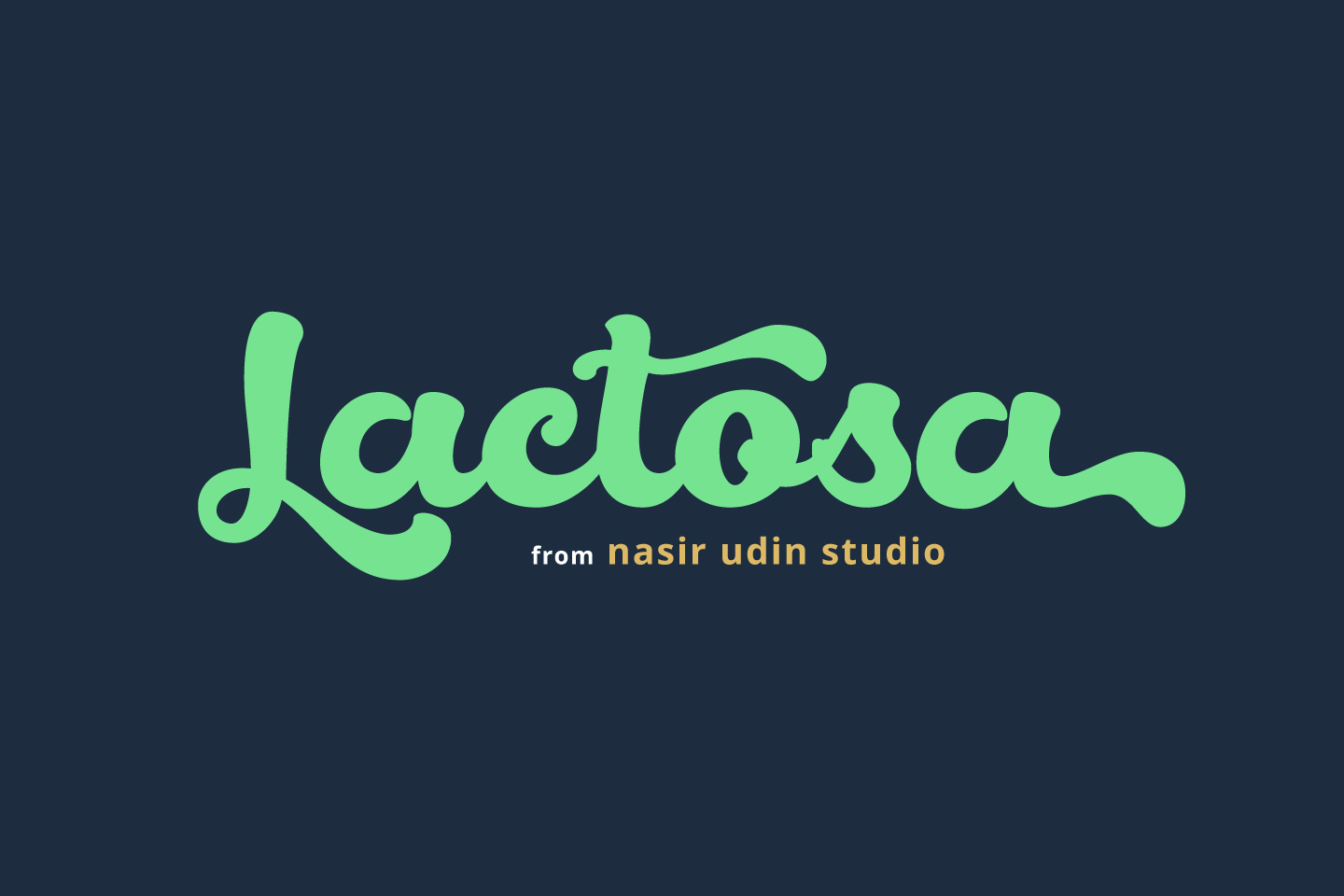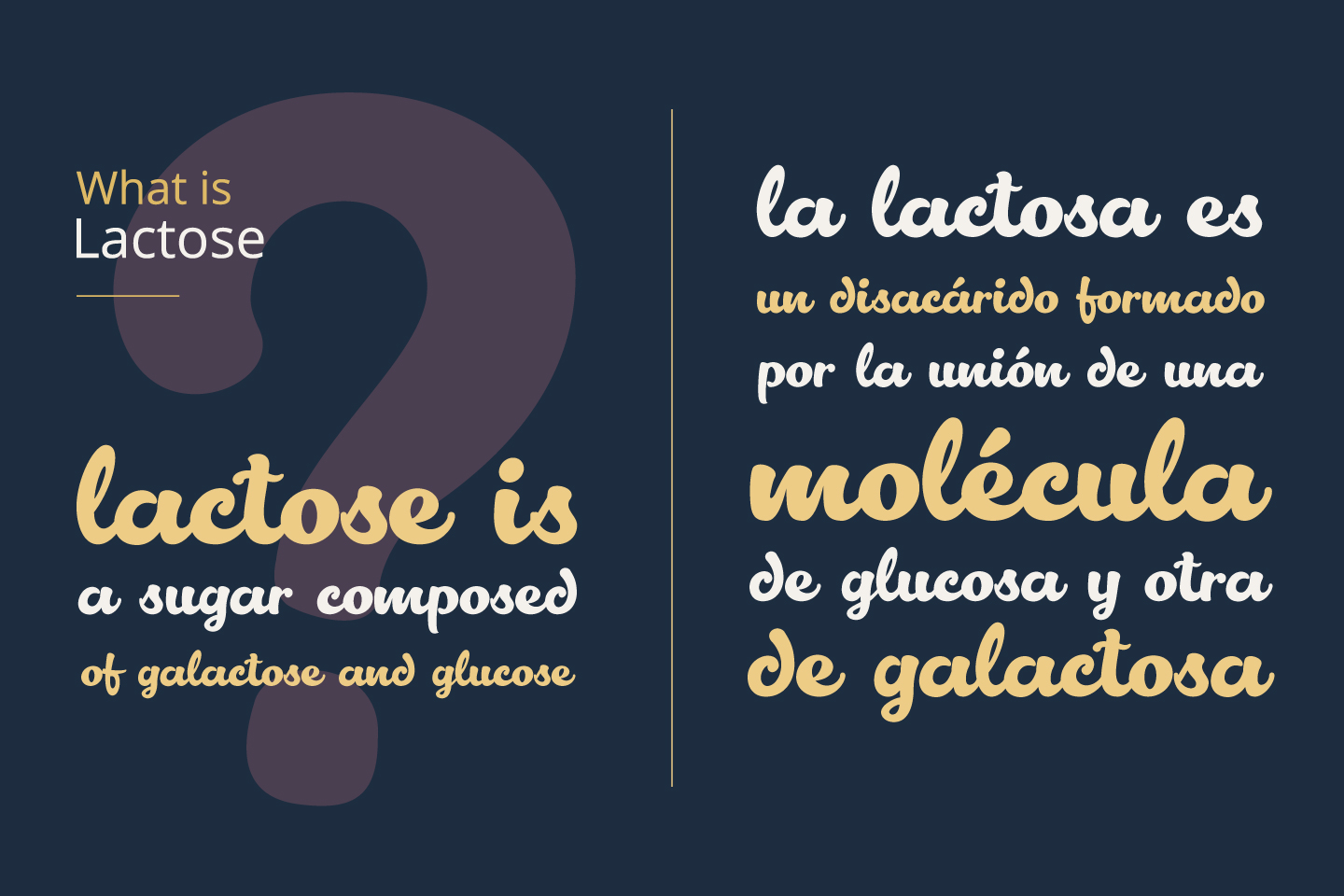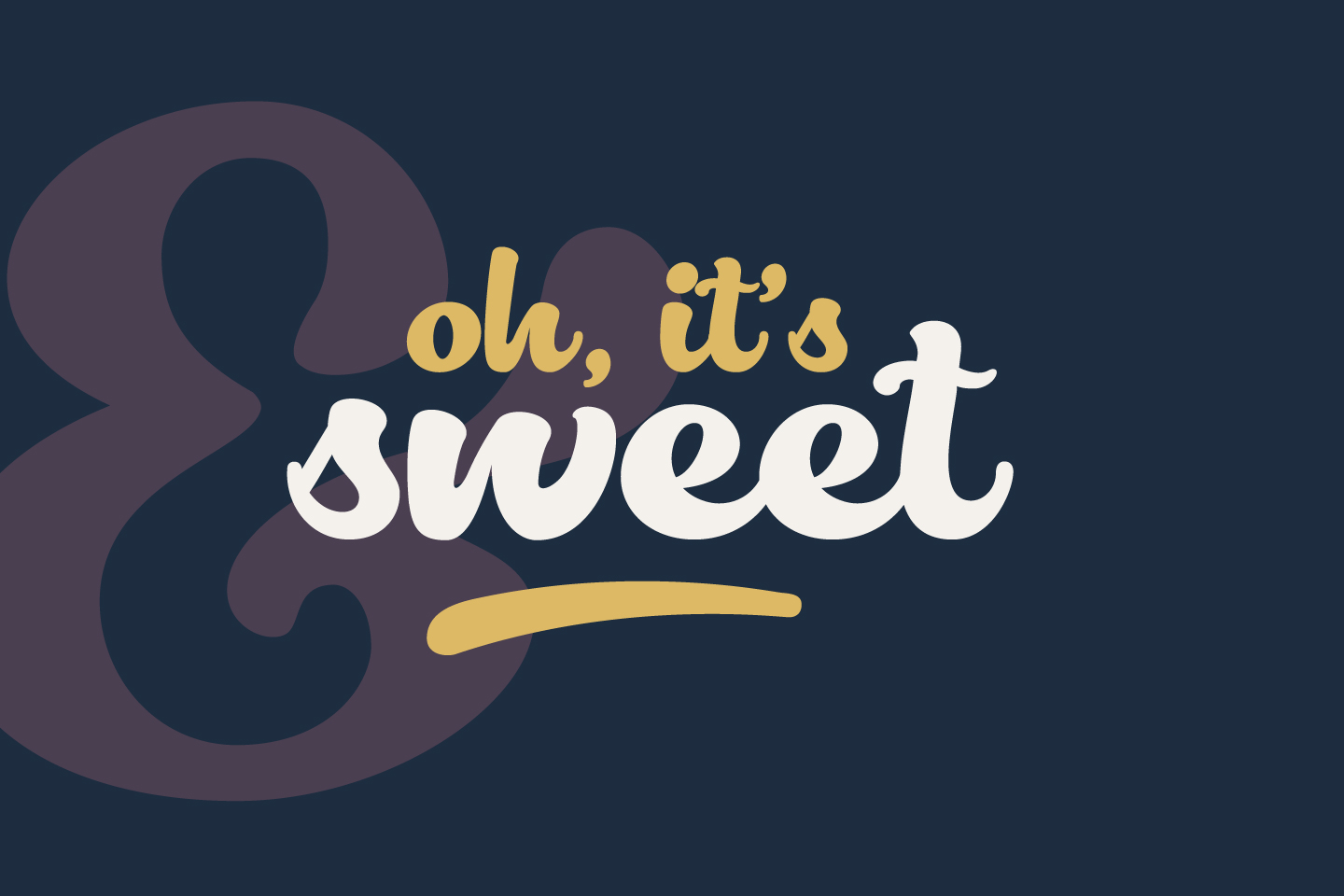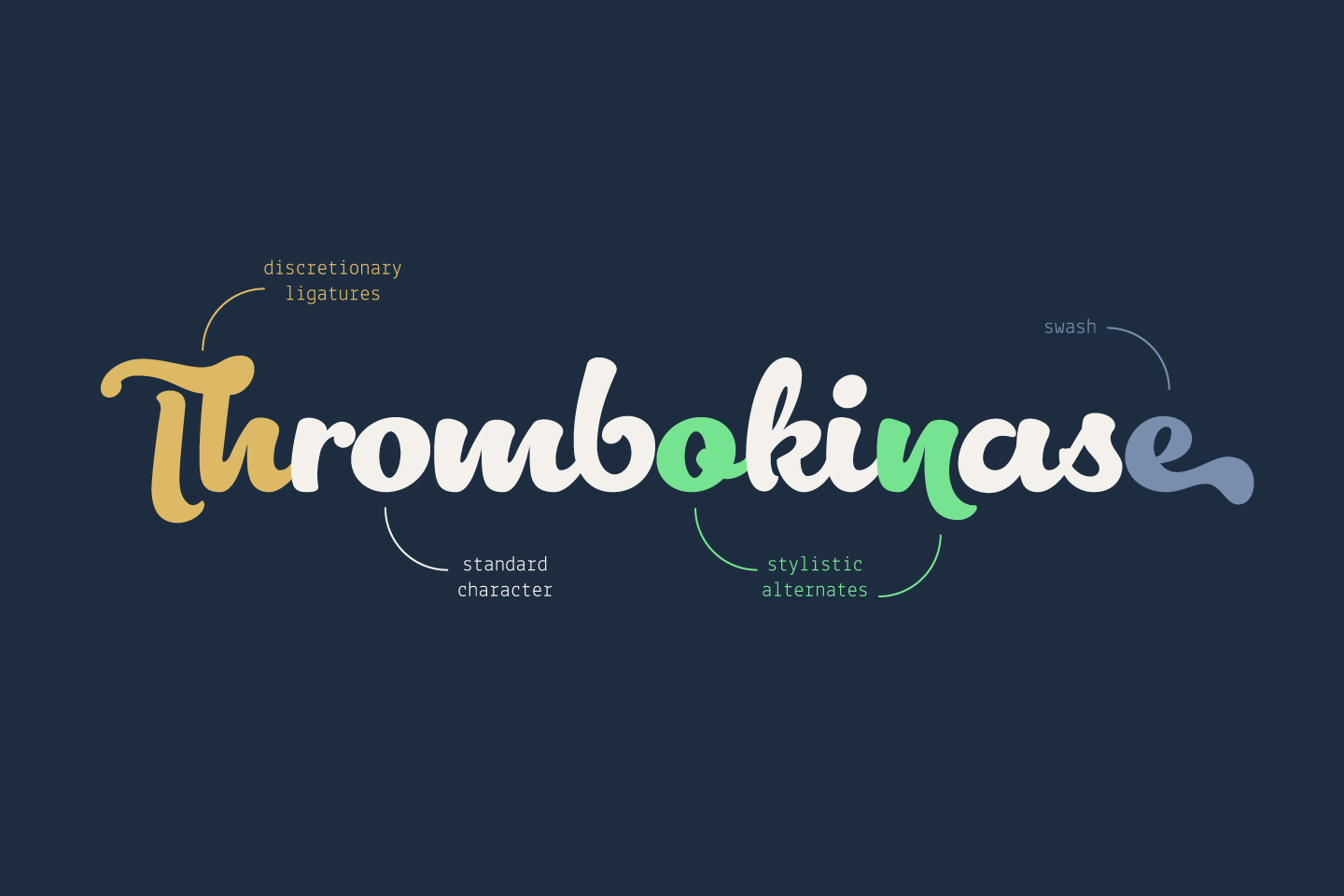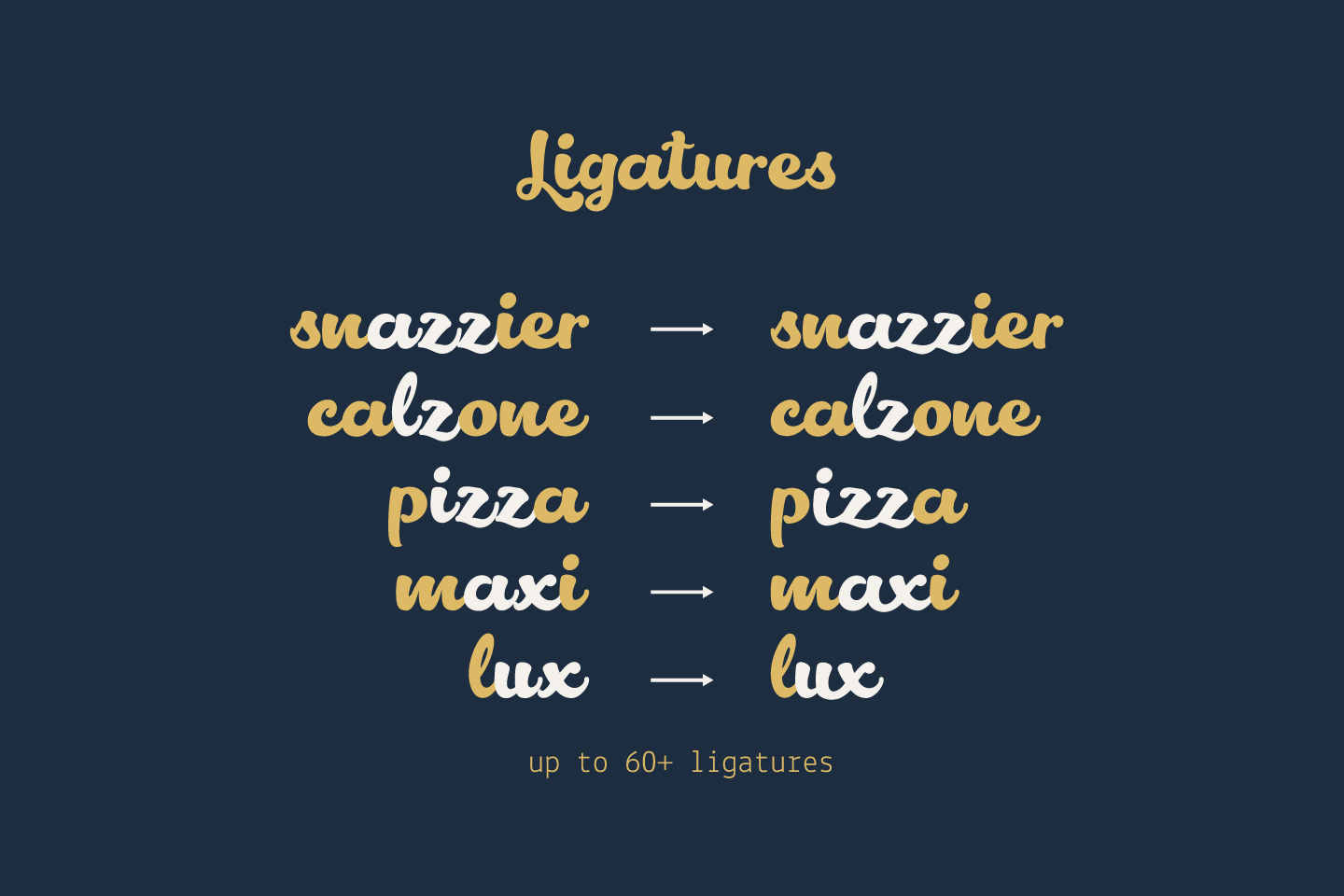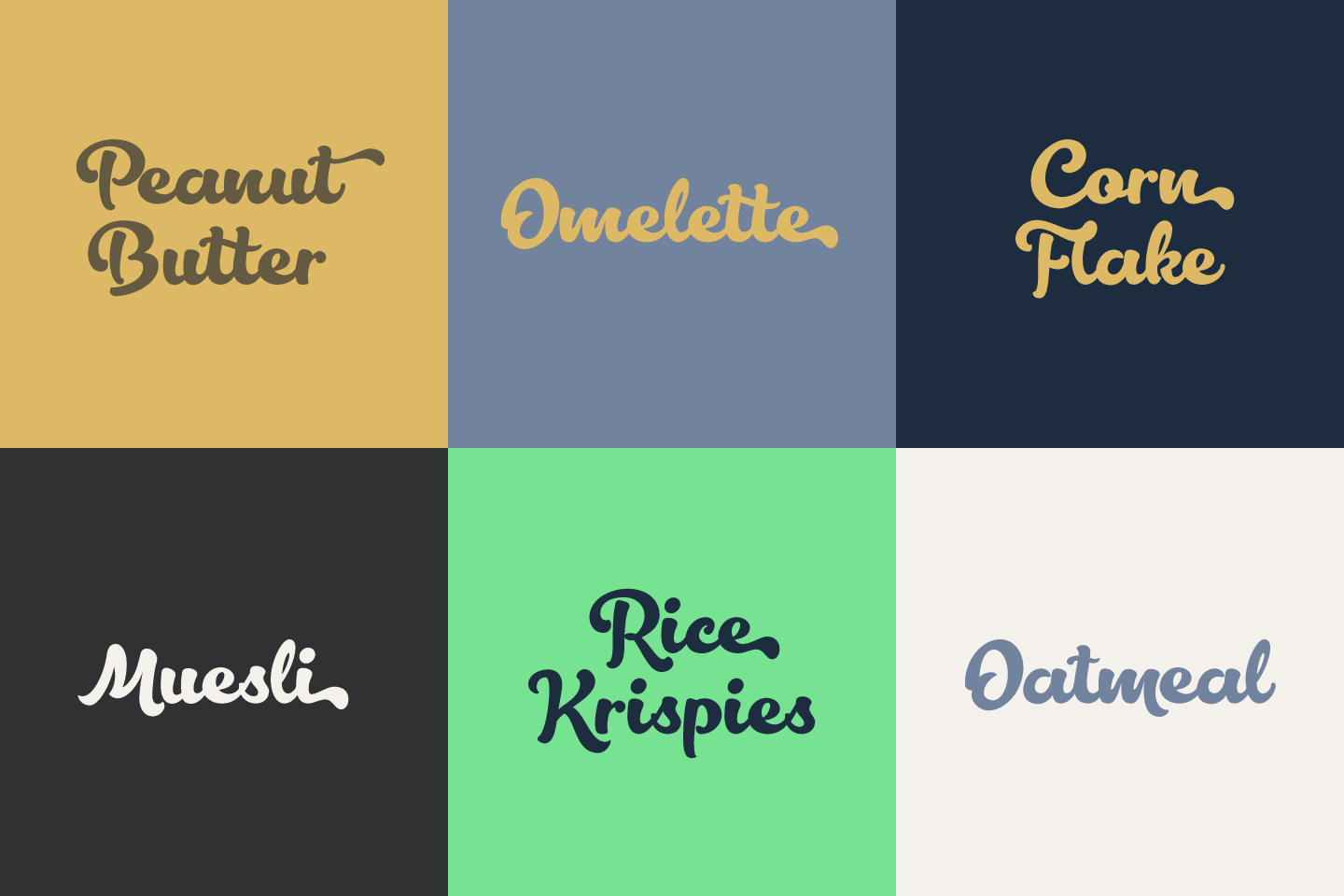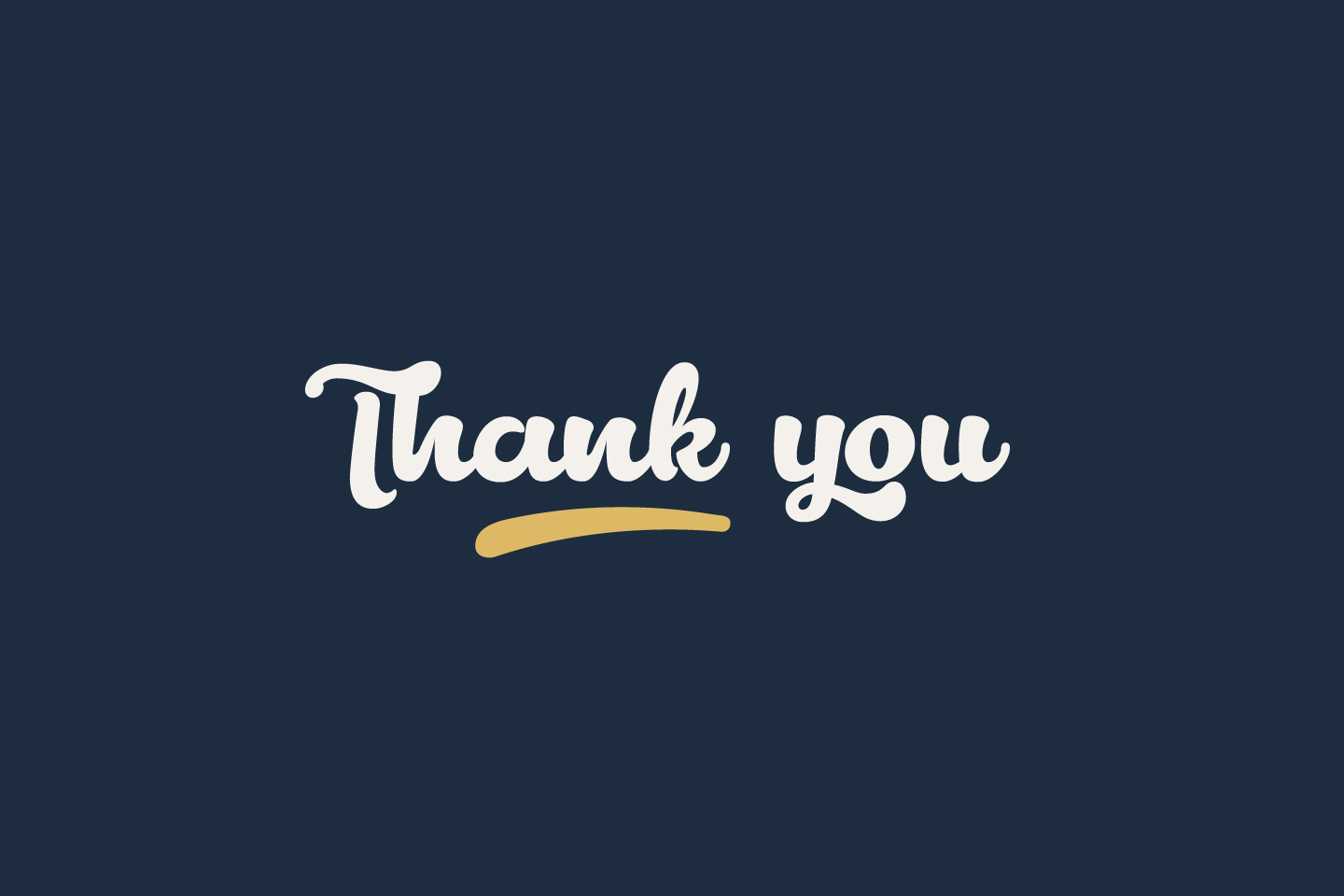
Lactosa Font
About Lactosa Font
Lactosa is a sweet script font that is bold, fully of energy, and curvaceous! The font comes with alternates for you to play with, and can amplify the uniqueness of your typographic designs.